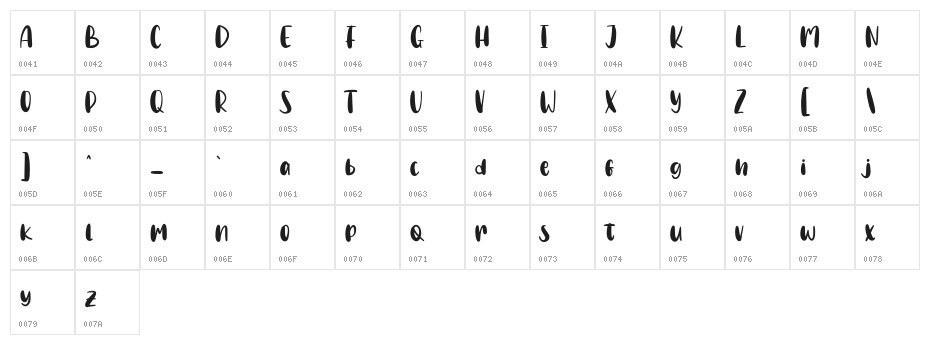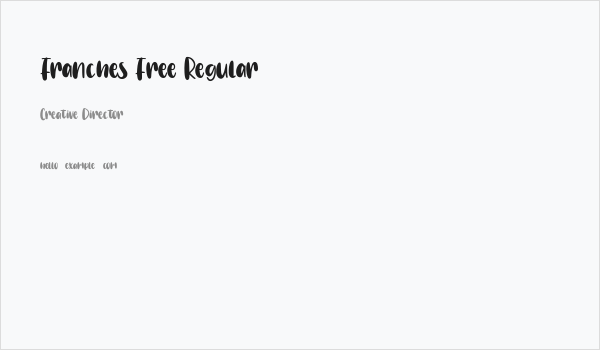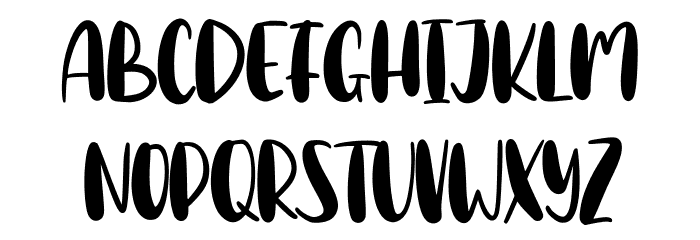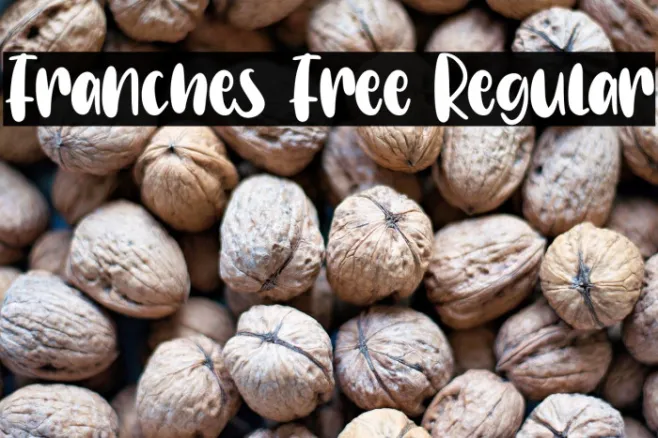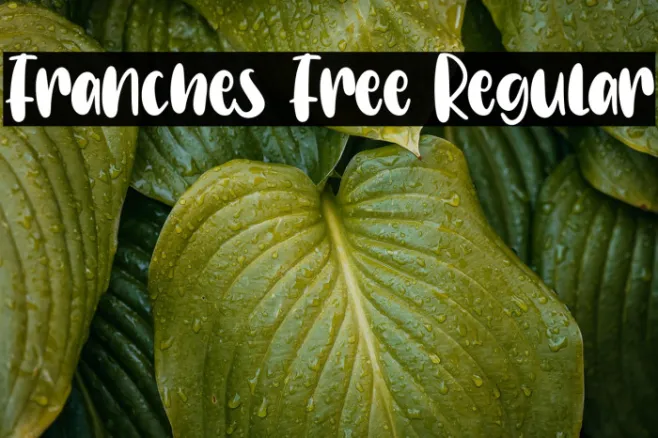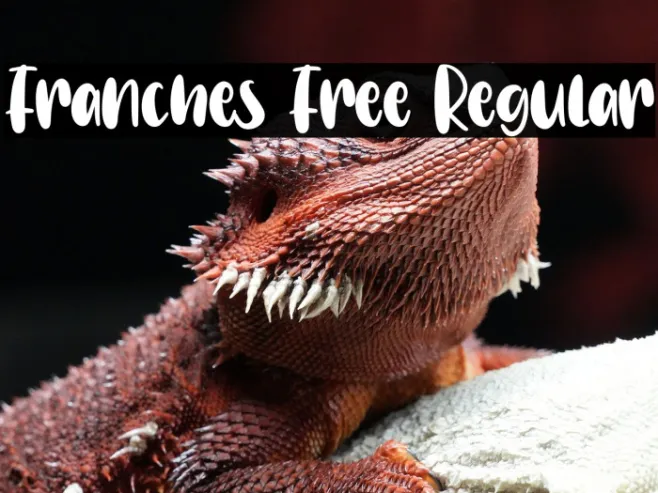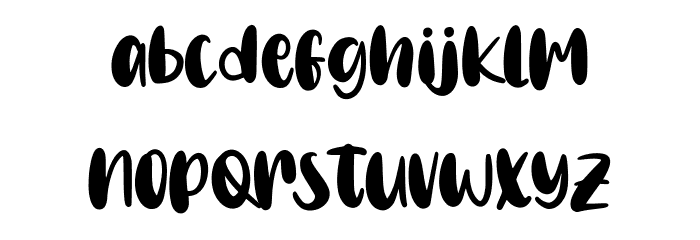
Franches Free Regular Font
Franches Free Regular Description
This font features a bold, expressive style with a handwritten feel. The characters are thick and rounded, giving a playful and friendly appearance. The uppercase and lowercase letters maintain a consistent flow, with smooth curves and a slightly irregular baseline that adds to the casual aesthetic. The font's strokes are uniform in thickness, contributing to its bold presence. It is well-suited for designs that require a personal touch, such as invitations, greeting cards, or branding materials that aim to convey warmth and approachability.
| Proposed Projects | Ideal for invitations, greeting cards, branding materials, and any design needing a personal touch. |